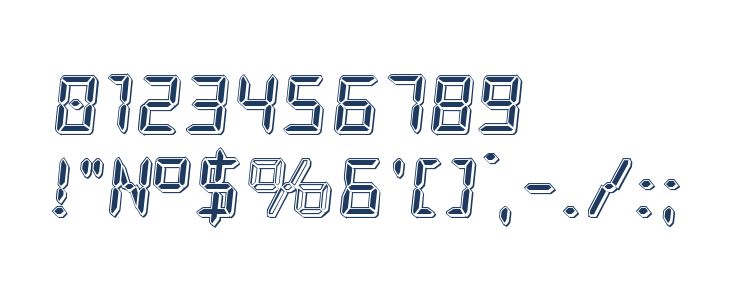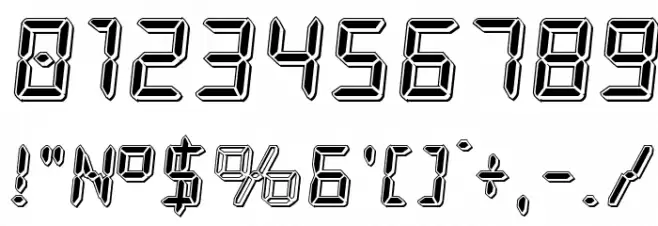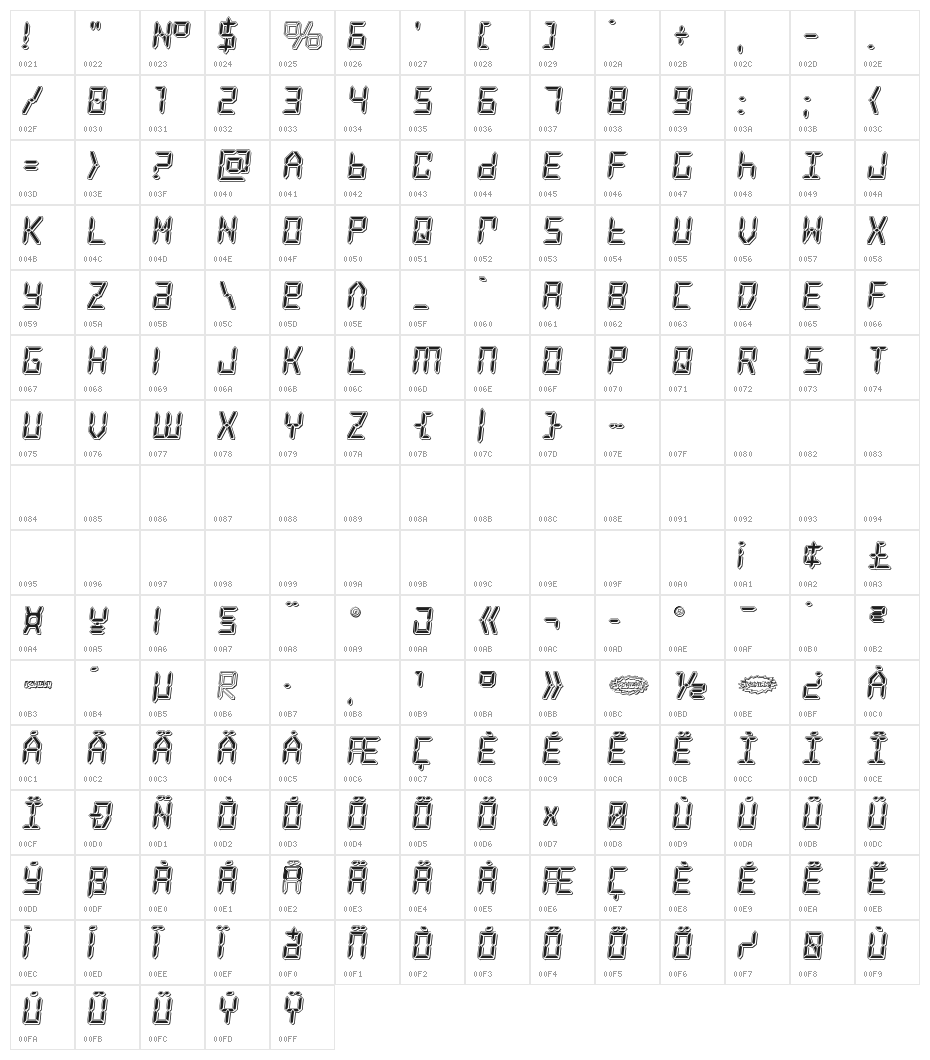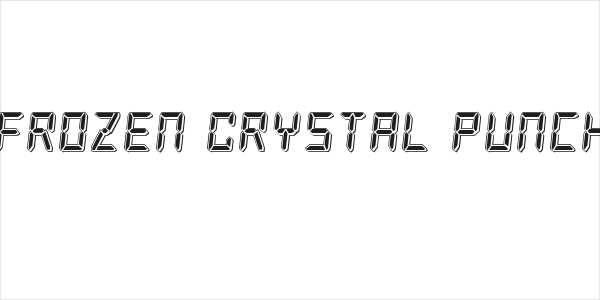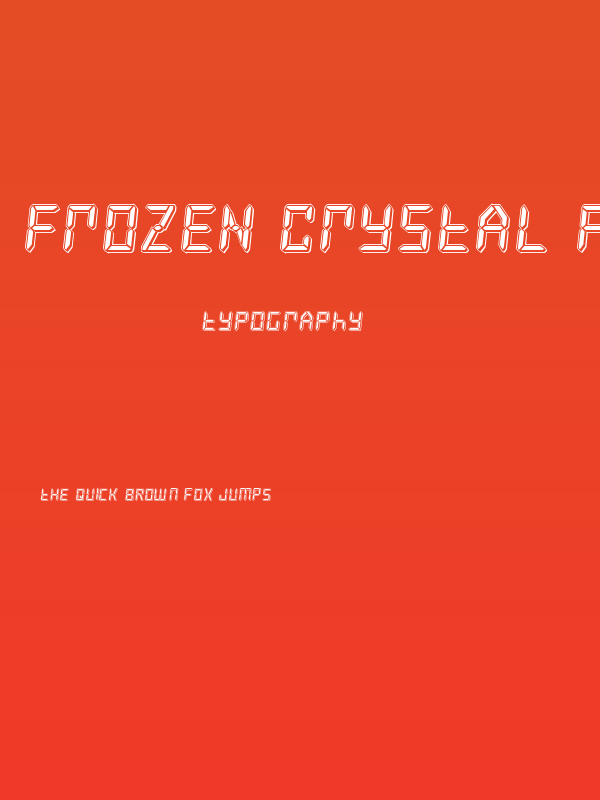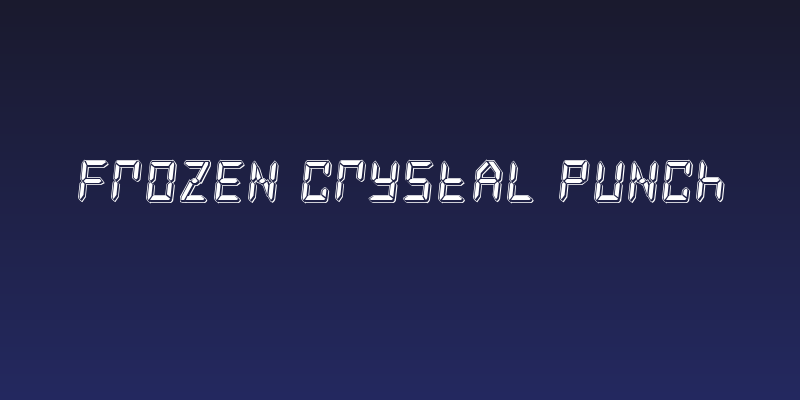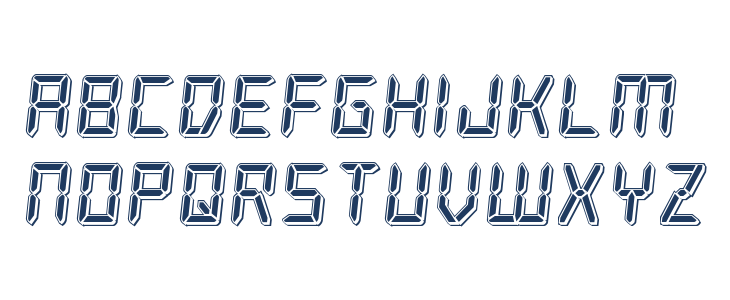
Frozen Crystal Punch Font
Frozen Crystal Punch Description
This font features a futuristic, digital style reminiscent of LED or LCD displays. Each character is composed of angular, geometric shapes with a distinct three-dimensional effect, giving the impression of being carved out of crystal or ice. The design is clean and precise, with consistent line thickness and sharp edges that enhance its modern, tech-inspired aesthetic. The uppercase and lowercase letters maintain uniformity in style, while the numerals and special characters are crafted to match the overall theme, making it suitable for digital interfaces or sci-fi themed projects.
| Proposed Projects | Ideal for digital interfaces, sci-fi themed designs, tech branding, and futuristic event posters. |